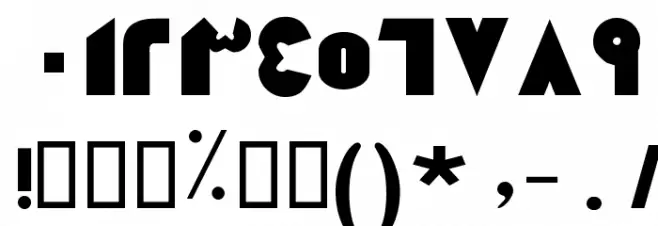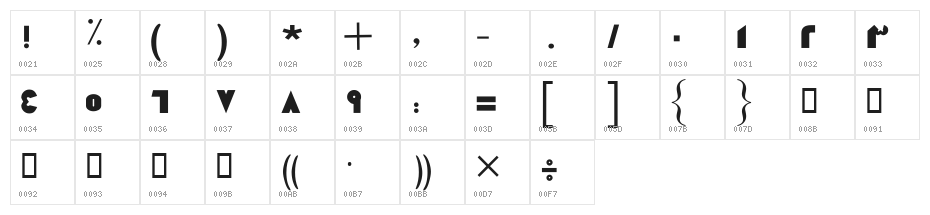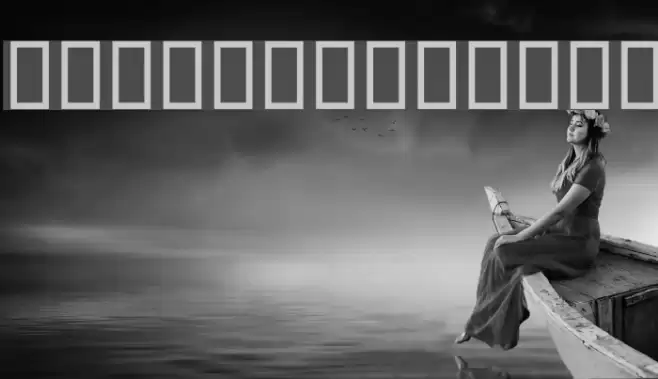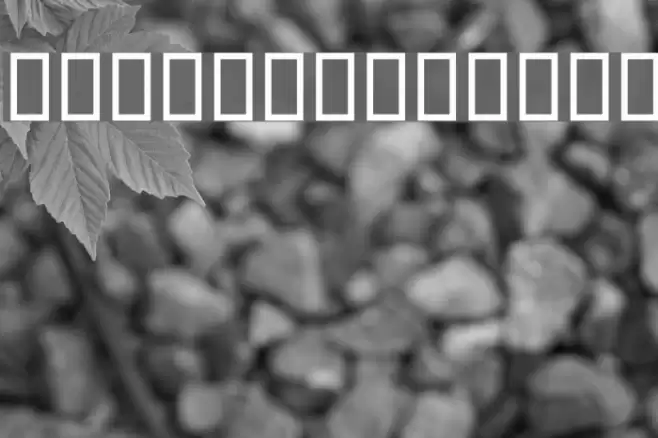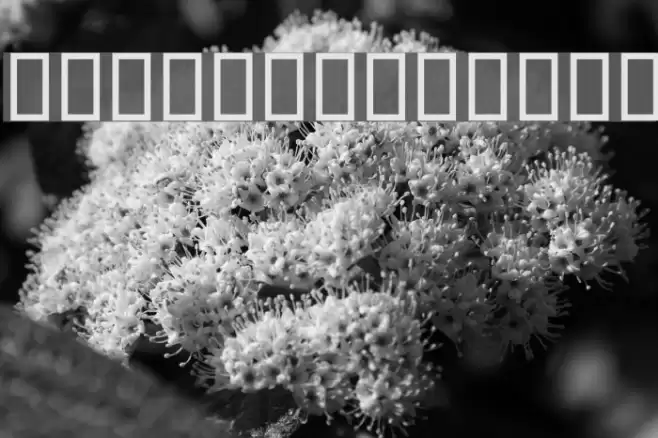
Black Font
Black Description
This font features a bold and impactful design, characterized by thick, solid strokes and a strong geometric structure. The characters are uniformly wide, giving the font a monospaced appearance, although it is not strictly monospaced. The uppercase letters are particularly striking, with sharp angles and a modern aesthetic that commands attention. The lowercase letters maintain the same boldness, ensuring consistency across the typeface. Numbers and special characters are equally robust, making this font suitable for a variety of applications where clarity and emphasis are required. The overall style is modern and assertive, ideal for making a statement.
| Proposed Projects | Ideal for headlines, posters, branding, and any project requiring a strong visual impact. |